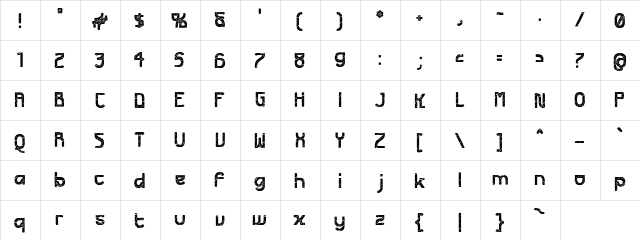
Futurex Apocalypse Regular
Design Context for Futurex Apocalypse Typeface
Futurex Apocalypse channels digital-age aesthetics through its sharp, structured letterforms — ideal for brands that want to signal innovation.
Pro Tip: Try Futurex Apocalypse with generous letter-spacing in UI labels and navigation — the geometric forms benefit from room to breathe.